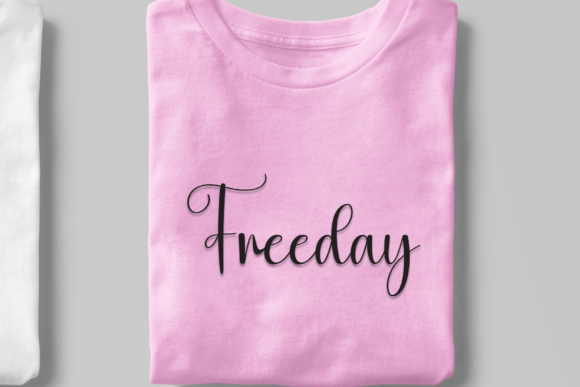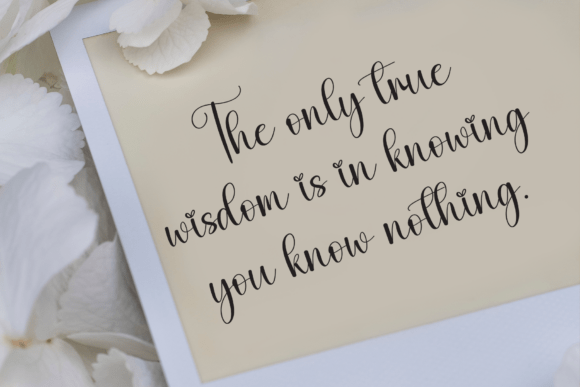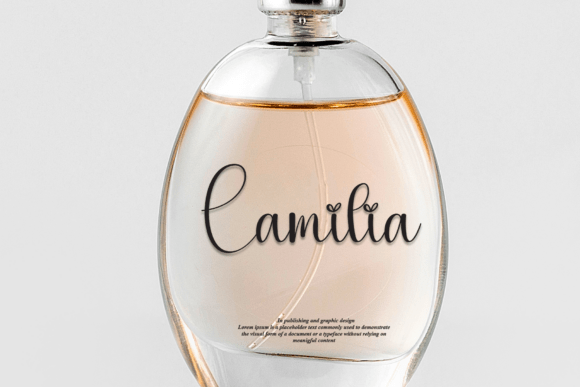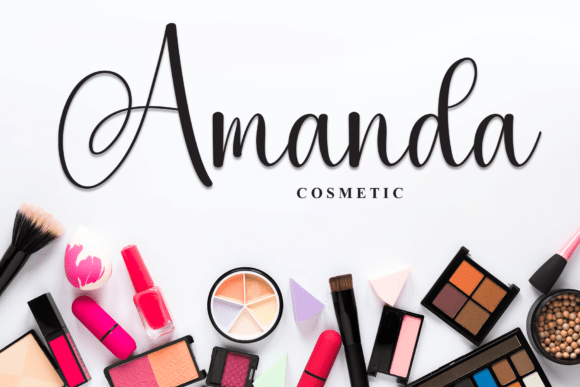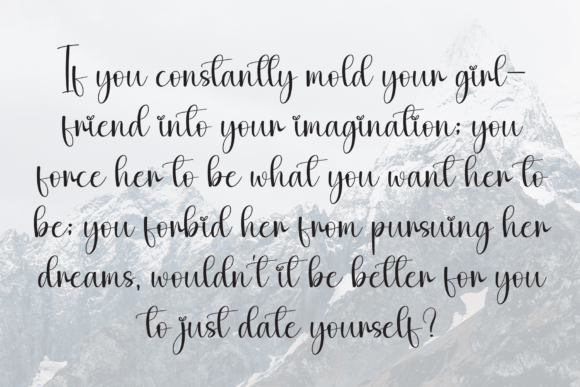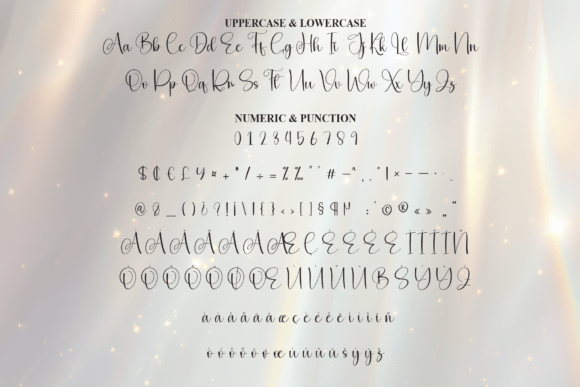
I still remember the frustration of working on a project, hours spent crafting the perfect design, only to realize that the font I was using just wasn’t cutting it. The client wanted something elegant, sophisticated, and modern, but the fonts I had tried so far just didn’t fit the bill. That’s when I stumbled upon Brighten Font, a stylish script font that exudes elegance and contemporary charm. In this article, I’ll share my experience with Brighten Font, its features, and how to make the most of it in your designs.
First Impressions: A Review of Brighten Font
So, what makes Brighten Font so special? Let’s dive into the good stuff! 😊
- ✨ Elegant and sophisticated: Brighten Font features graceful strokes, fluid curves, and carefully crafted letterforms that capture the beauty of hand-drawn calligraphy with a modern twist.
- ✅ Versatile: Ideal for logos, invitations, packaging, and social media graphics, Brighten Font adds a refined and sophisticated touch to any design.
- 🌈 Visual appeal: With its natural flow and polished details, this font delivers both versatility and visual appeal.
While Brighten Font is an excellent choice, there are a few things to keep in mind:
- 🤔 Limited use in body text: Due to its script nature, Brighten Font might not be the best choice for long-form body text. It’s better suited for headings, titles, or short paragraphs.
- ⚠️ Pay attention to font size: Brighten Font can look stunning at larger font sizes, but it may lose its elegance at smaller sizes. Experiment with different sizes to find the sweet spot for your design.
- Experiment with OpenType features like ligatures, stylistic alternates, and swashes to add more flair to your text.
The Story Behind Brighten Font
Brighten Font was designed with the intention of capturing the essence of hand-drawn calligraphy in a digital format. The designer aimed to create a font that would be both elegant and modern, perfect for a wide range of design applications. With its beautiful letterforms and fluid strokes, Brighten Font has become a popular choice among designers and crafters.
| Font Name | Brighten Font |
| What type of designs is Brighten Font best suited for? | Brighten Font is ideal for logos, invitations, packaging, and social media graphics that require an elegant and sophisticated touch. |
| Can I use Brighten Font for body text? | While possible, Brighten Font is better suited for headings, titles, or short paragraphs due to its script nature. |
| Is Brighten Font available in different weights or styles? | Currently, Brighten Font is available in a single weight, but its versatility and range of OpenType features make it suitable for various design applications. |